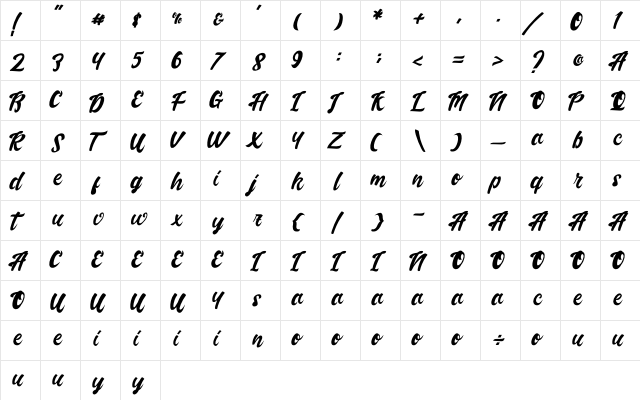
Handletterink Regular
Design Context for Handletterink Typeface
Handletterink brings a calligraphic fluidity to the page — its connecting strokes and expressive curves give it an unmistakably human quality.
Font Pairing: Combine Handletterink with a simple geometric sans for maximum contrast — the tension between flowing curves and clean structure is a classic typographic pairing.
Pro Tip: Use Handletterink for short runs of text — names, titles, or taglines. Extended body copy in script faces tires the eye quickly.